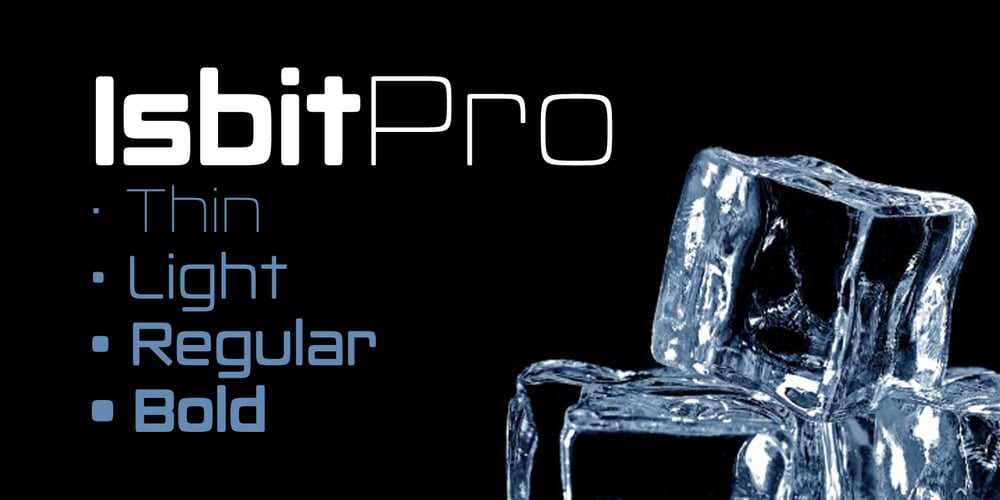
Isbit Pro
Isbit Pro font
Isbit Pro Font Family was designed by Roger S. Nelsson and published by CheapProFonts. Isbit Pro contains 4 styles and family package options. Inspired by the shape of melting icecubes (“isbit” is the norwegian word for “ice cube”), this small superelliptical font family is perfect for logos and headlines. An alternate lowercase a and n is available as stylistic alternates – and a straight lowercase j (which also will be automatically substituted when the normal j would collide with the preceding glyph). ALL fonts from CheapProFonts have very extensive language support: They contain some unusual diacritic letters (some of which are contained in the Latin Extended-B Unicode block) supporting: Cornish, Filipino (Tagalog), Guarani, Luxembourgian, Malagasy, Romanian, Ulithian and Welsh. They also contain all glyphs in the Latin Extended-A Unicode block (which among others cover the Central European and Baltic areas) supporting: Afrikaans, Belarusian (Lacinka), Bosnian, Catalan, Chichewa, Croatian, Czech, Dutch, Esperanto, Greenlandic, Hungarian, Kashubian, Kurdish (Kurmanji), Latvian, Lithuanian, Maltese, Maori, Polish, Saami (Inari), Saami (North), Serbian (latin), Slovak(ian), Slovene, Sorbian (Lower), Sorbian (Upper), Turkish and Turkmen. And they of course contain all the usual “western” glyphs supporting: Albanian, Basque, Breton, Chamorro, Danish, Estonian, Faroese, Finnish, French, Frisian, Galican, German, Icelandic, Indonesian, Irish (Gaelic), Italian, Northern Sotho, Norwegian, Occitan, Portuguese, Rhaeto-Romance, Sami (Lule), Sami (South), Scots (Gaelic), Spanish, Swedish, Tswana, Walloon and Yapese.